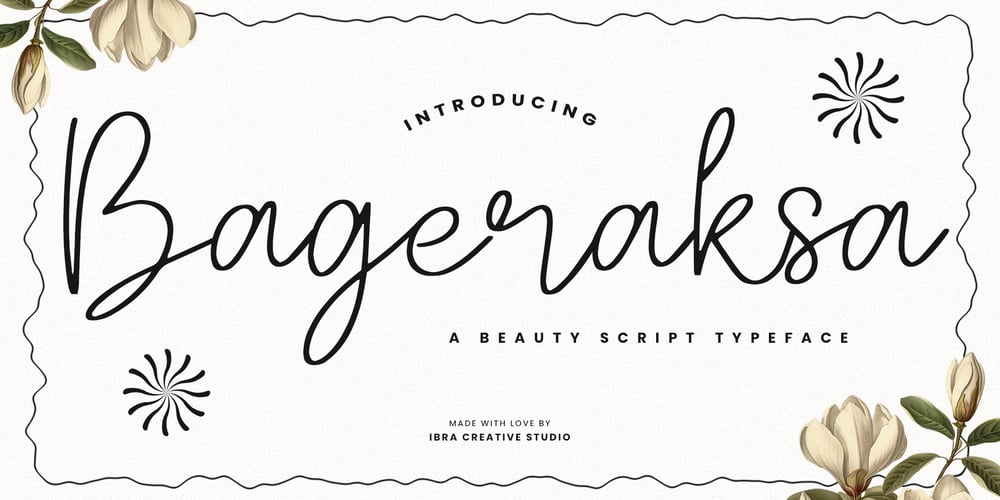
Bageraksa
Bageraksa font
Bageraksa Font Family was designed by Roisatul Azizah and published by IbraCreative. Bageraksa contains 1 styles and family package options. Bageraksa – A Beauty Script TypefaceBageraksa, a beauty script typeface, captivates with its elegant flourishes and graceful curves, reminiscent of delicate brushstrokes on canvas. Each letter in Bageraksa exudes sophistication and charm, evoking a sense of timeless allure. With its fluid lines and intricate details, this typeface adds a touch of luxury and refinement to any design project. Whether used for wedding invitations, branding materials, or elegant packaging, Bageraksa elevates the aesthetic with its romantic and feminine appeal. With its versatile nature and captivating elegance, Bageraksa stands as a testament to the beauty of handwritten script fonts, infusing every word with a sense of grace and beauty. Bageraksa is perfect for branding projects, logo, wedding designs, social media posts, advertisements, product packaging, product designs, label, photography, watermark, invitation, stationery, game, fashion and any projects.Fonts include multilingual support for; Afrikaans, Albanian, Czech, Danish, Dutch, English, Estonian, Finnish, French, German, Hungarian, Italian, Latvian, Lithuanian, Norwegian, Polish, Portuguese, Slovak, Slovenian, Spanish, Swedish.